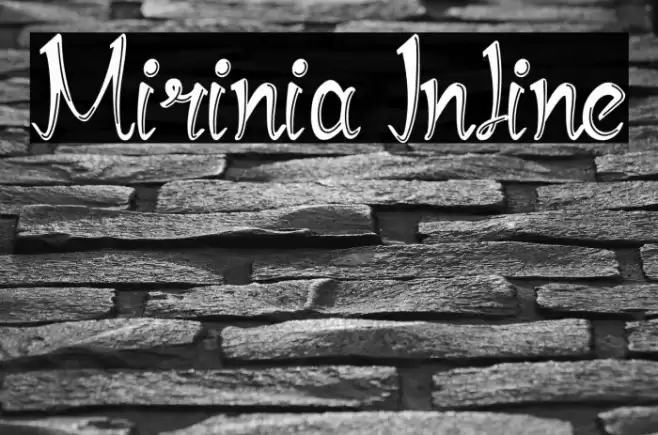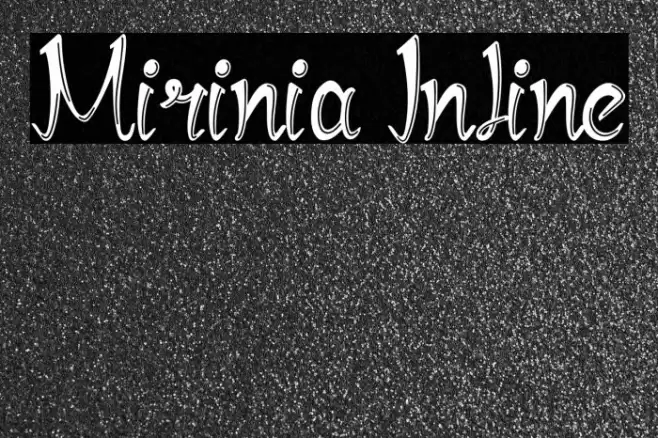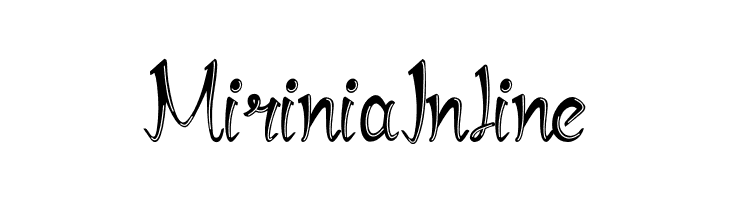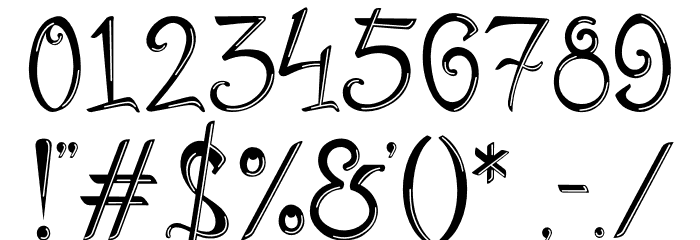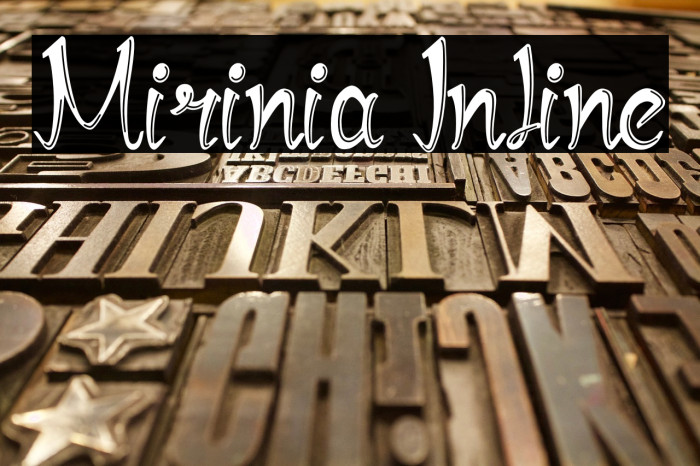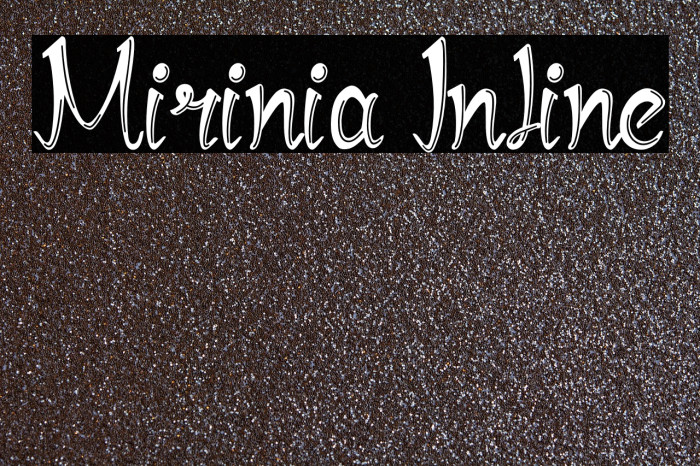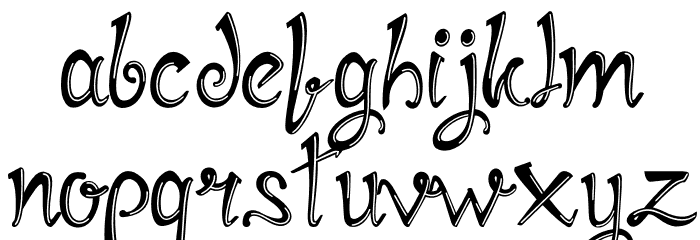
Mirinia Inline Font
Mirinia Inline Description
This font features an elegant and artistic design with a calligraphic flair. The characters are adorned with intricate swirls and flourishes, giving them a whimsical and decorative appearance. The uppercase letters are bold and expressive, while the lowercase letters maintain a consistent style with slightly more subtle embellishments. The numerals are uniquely styled, maintaining the overall artistic theme. Special characters are creatively integrated, adding to the font's charm. The overall design is reminiscent of hand-drawn script, making it ideal for projects that require a touch of sophistication and creativity.
An elegant, decorative font with calligraphic swirls and flourishes from Uncategorized fonts.
- Proposed Projects: Ideal for wedding invitations, greeting cards, artistic posters, and branding materials that require a sophisticated and creative touch.
- Use Case: Logos, Headlines, Artistic projects